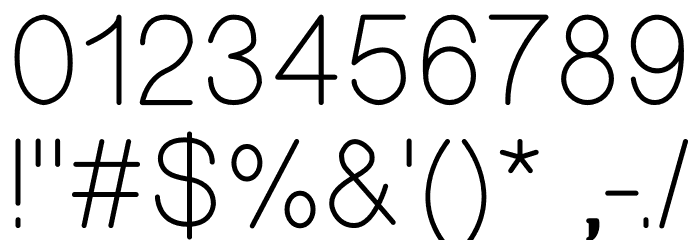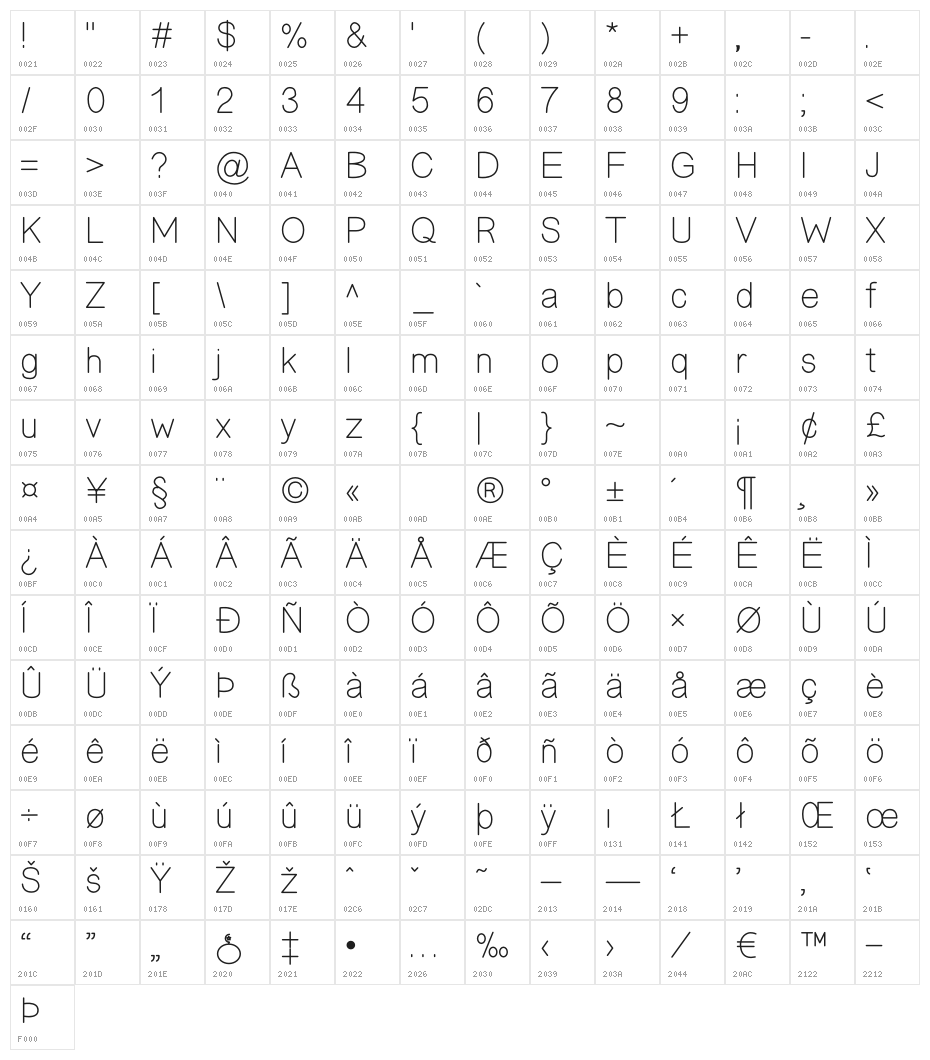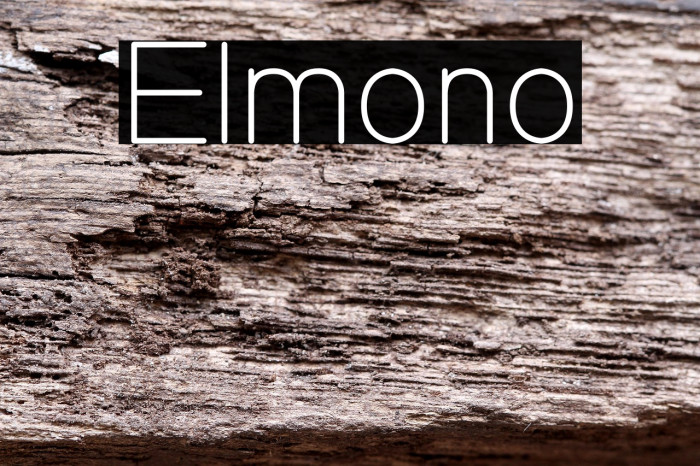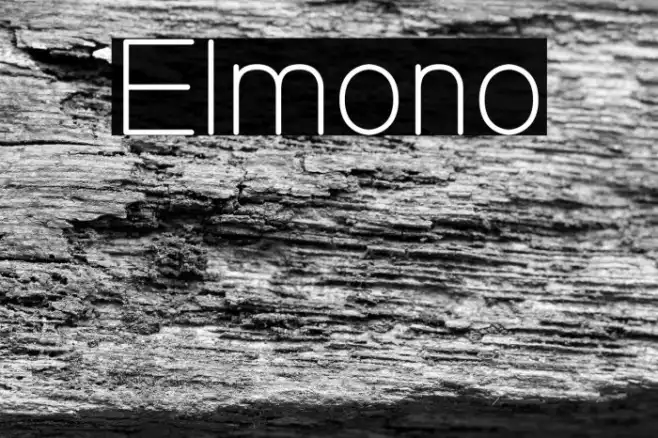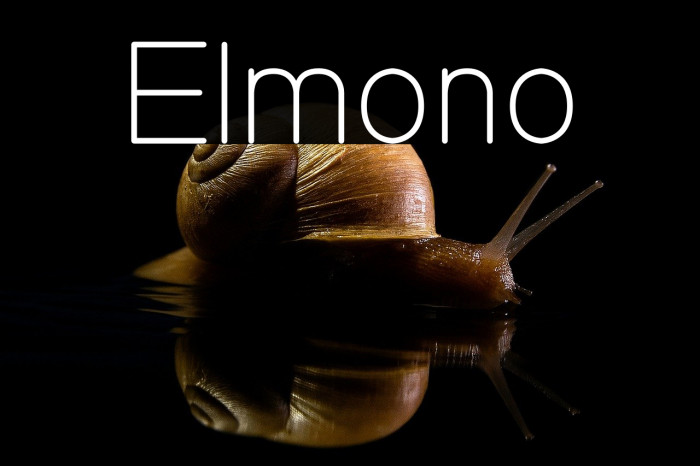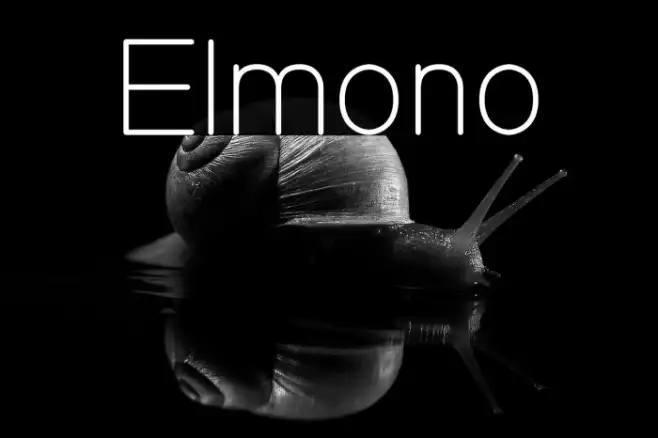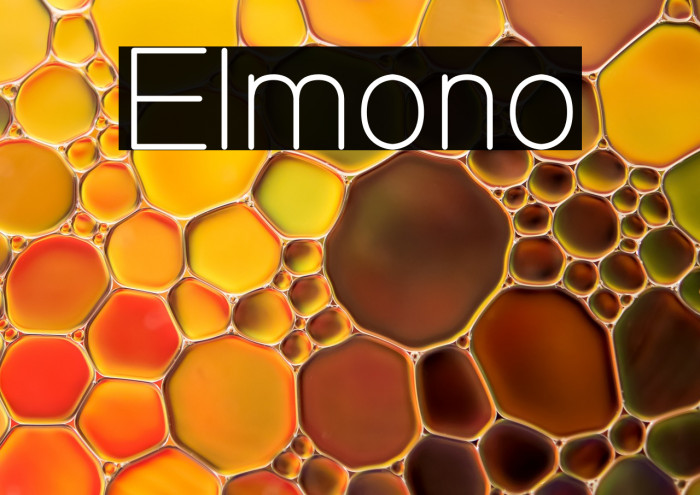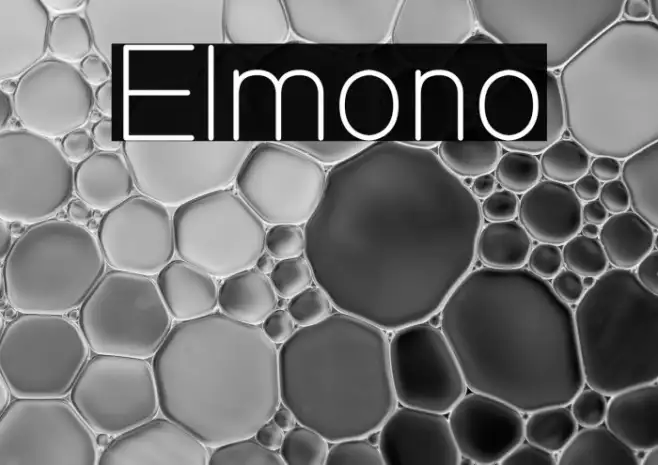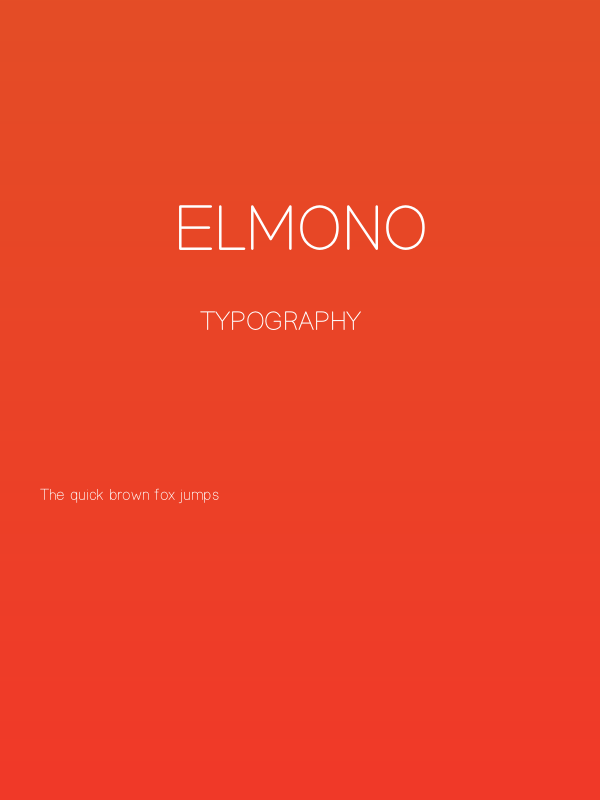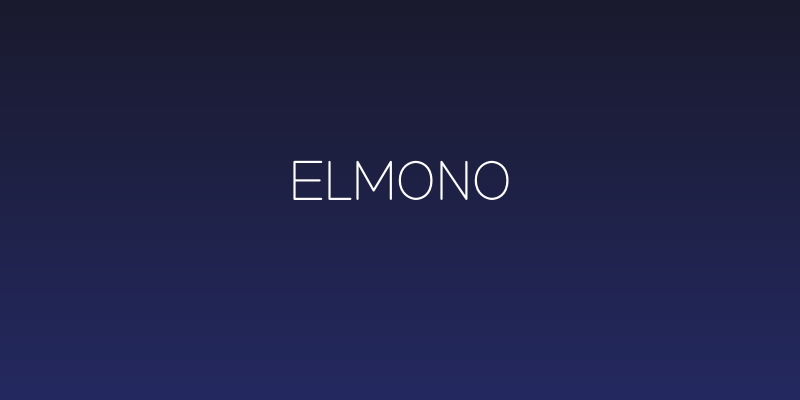
Elmono Font
Elmono Description
This font features a clean and modern sans-serif design with a geometric structure. The characters are evenly spaced, providing a balanced and harmonious appearance. The uppercase letters are bold and assertive, while the lowercase letters maintain a consistent and smooth flow. The numerals are clear and legible, making them suitable for various applications. The special characters are well-integrated, ensuring versatility in design projects. The overall style is minimalist, making it ideal for contemporary branding and digital interfaces.
| Proposed Projects | Ideal for branding, digital interfaces, advertising, and editorial design. |